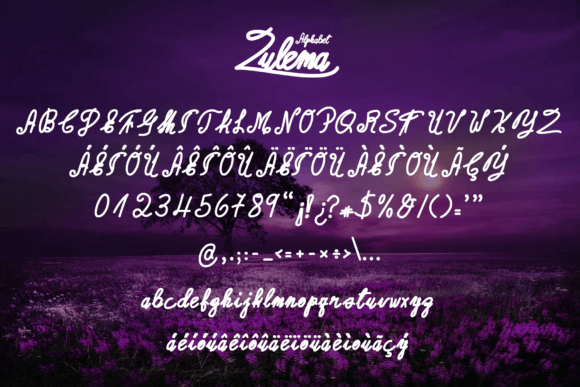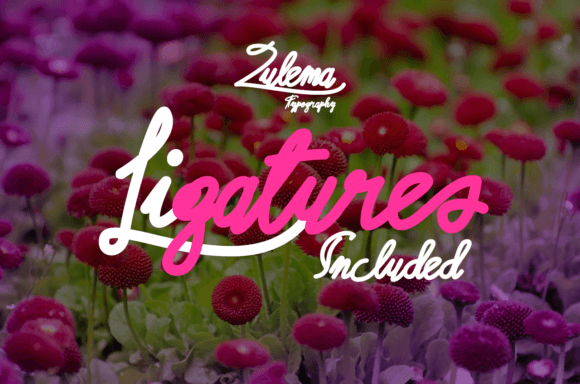
About Zulema Font
**Zulema Ganem Font: Elegance in Cursive Design**
Presenting the Zulema Ganem font, a calligraphically designed masterpiece in a cursive style. Crafted by Zulema Ganem, this font features a fairly light script alphabet, making it a perfect fit for logos and cursive titles that can stand out with its fascinating blend of hand-drawn and digitally drawn lines.
**Cursive Elegance:**
Zulema Ganem Font captures the essence of elegance in cursive writing. The flowing script adds a touch of sophistication to your designs, creating a harmonious blend of handcrafted artistry and digital precision.
**Perfect for Logos:**
Designed with logos in mind, Zulema Ganem Font brings a unique charm to brand identities. The cursive style adds a personal and distinctive touch, making your logos stand out with a combination of fluidity and grace.
**Light and Captivating Script:**
The fairly light script of Zulema Ganem Font contributes to its captivating nature. The delicate strokes create a visual appeal that is both gentle and alluring. This makes it an ideal choice for titles and headings where you want a script that is visually pleasing and stylish.
**Hand-Drawn and Digitally Drawn Fusion:**
Zulema Ganem Font achieves a fascinating fusion of hand-drawn and digitally drawn lines. This combination adds depth and character to the font, making it versatile for a range of design projects. It ensures that your titles and logos have a unique and captivating appearance.
**Stand Out with Zulema Ganem:**
Choose Zulema Ganem Font when you want your designs to stand out with a distinctive cursive style. Whether it’s for a logo, title, or any other creative project, this font provides an elegant and eye-catching solution.
Zulema Ganem Font is not just a font; it’s a piece of art that adds a touch of sophistication to your designs. Let it be the cursive script that elevates your logos and titles, making them memorable and visually stunning.